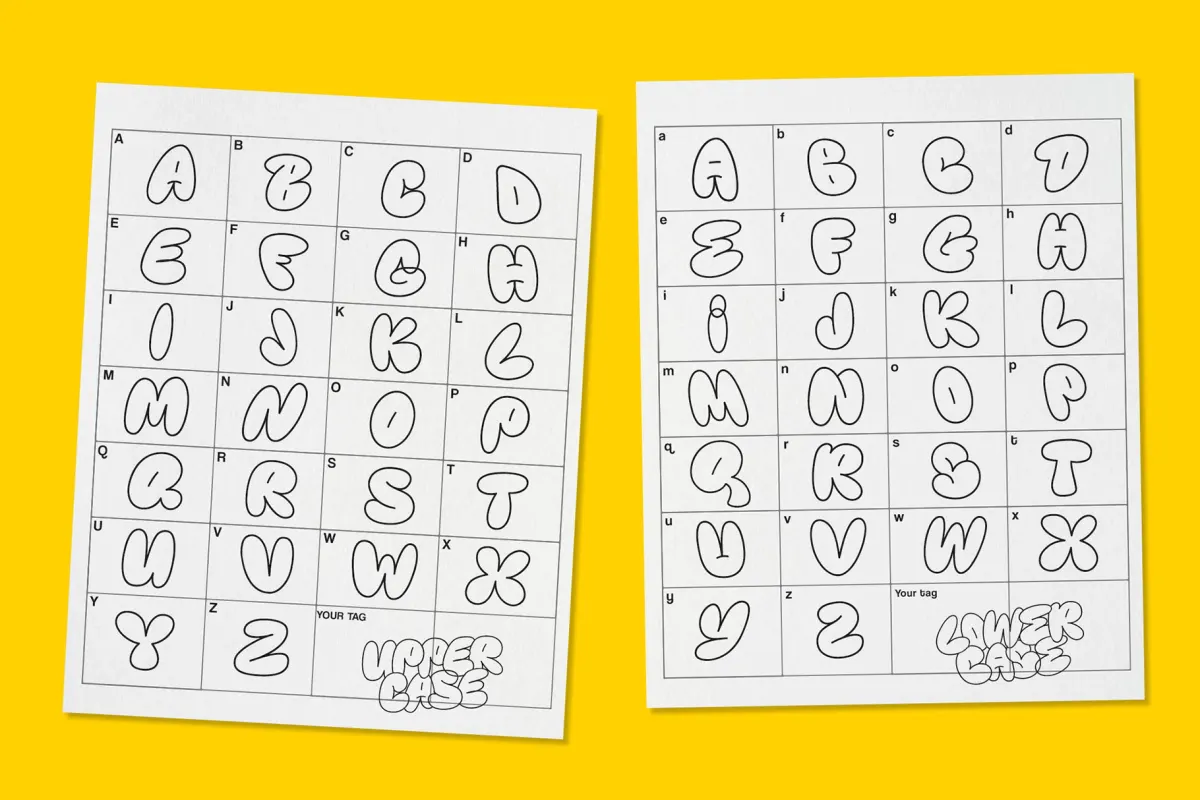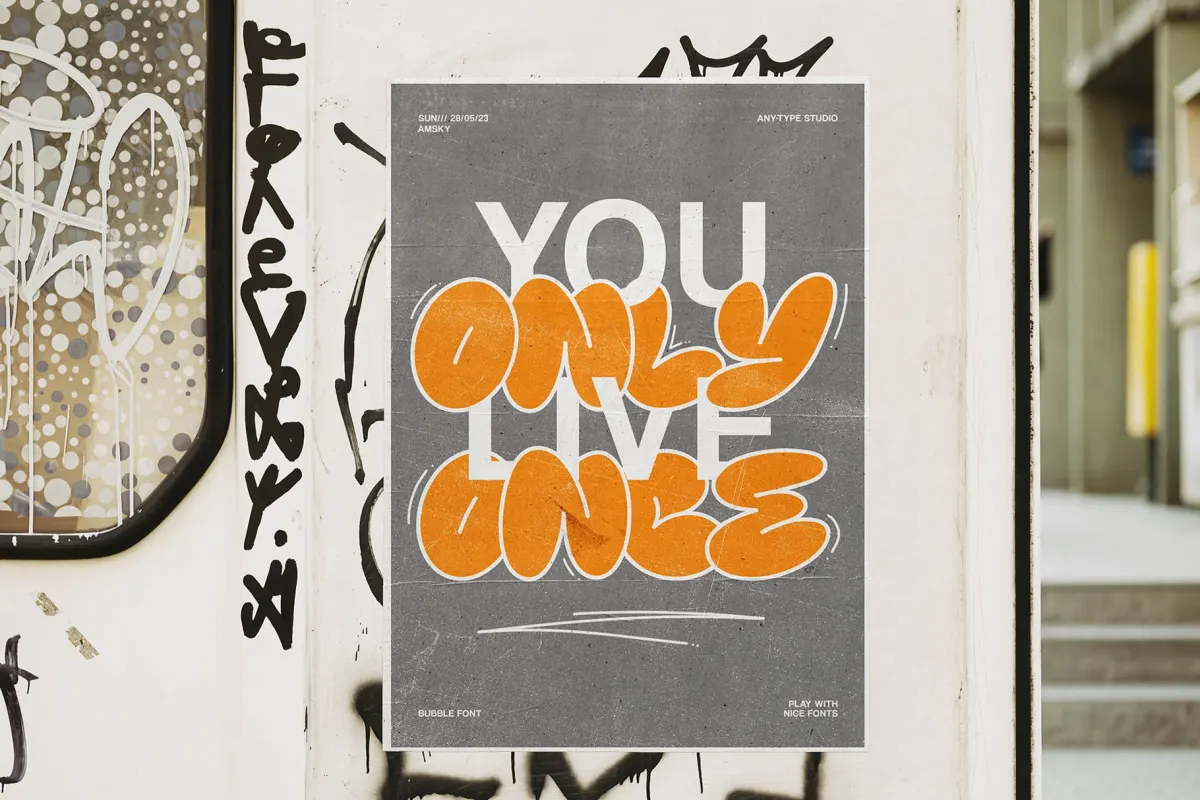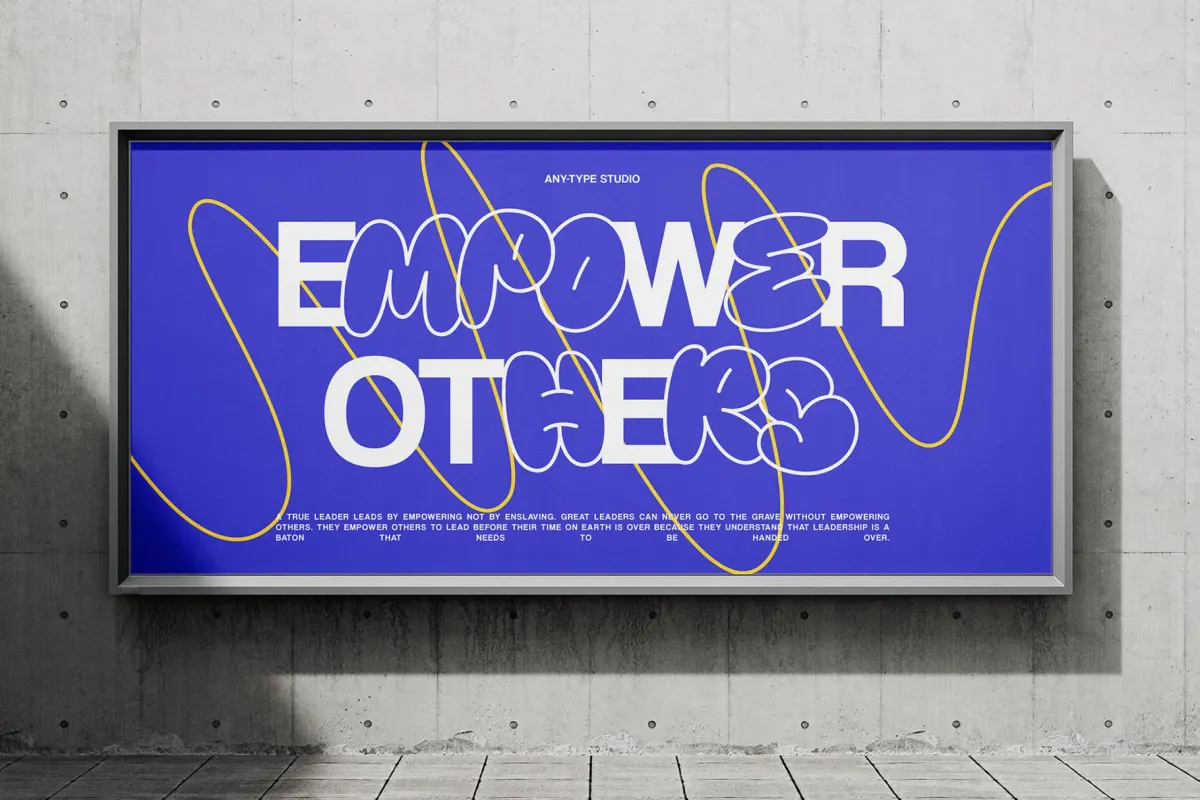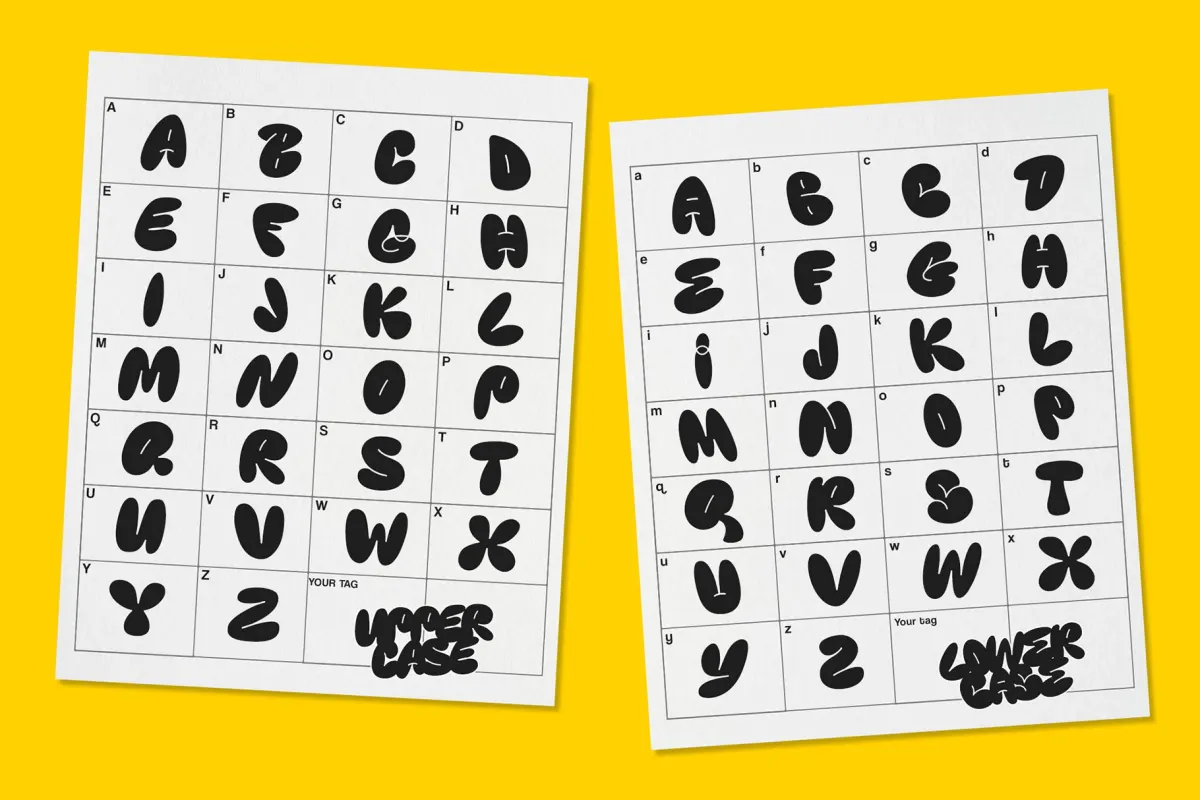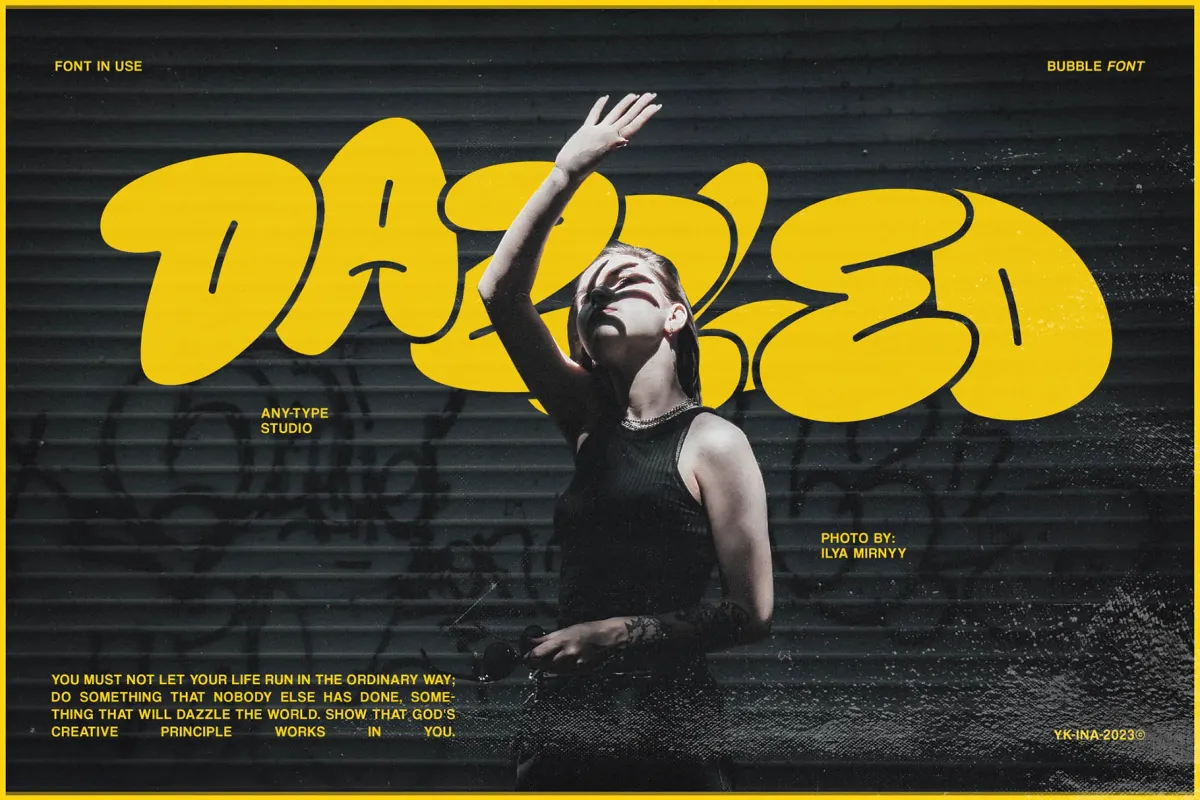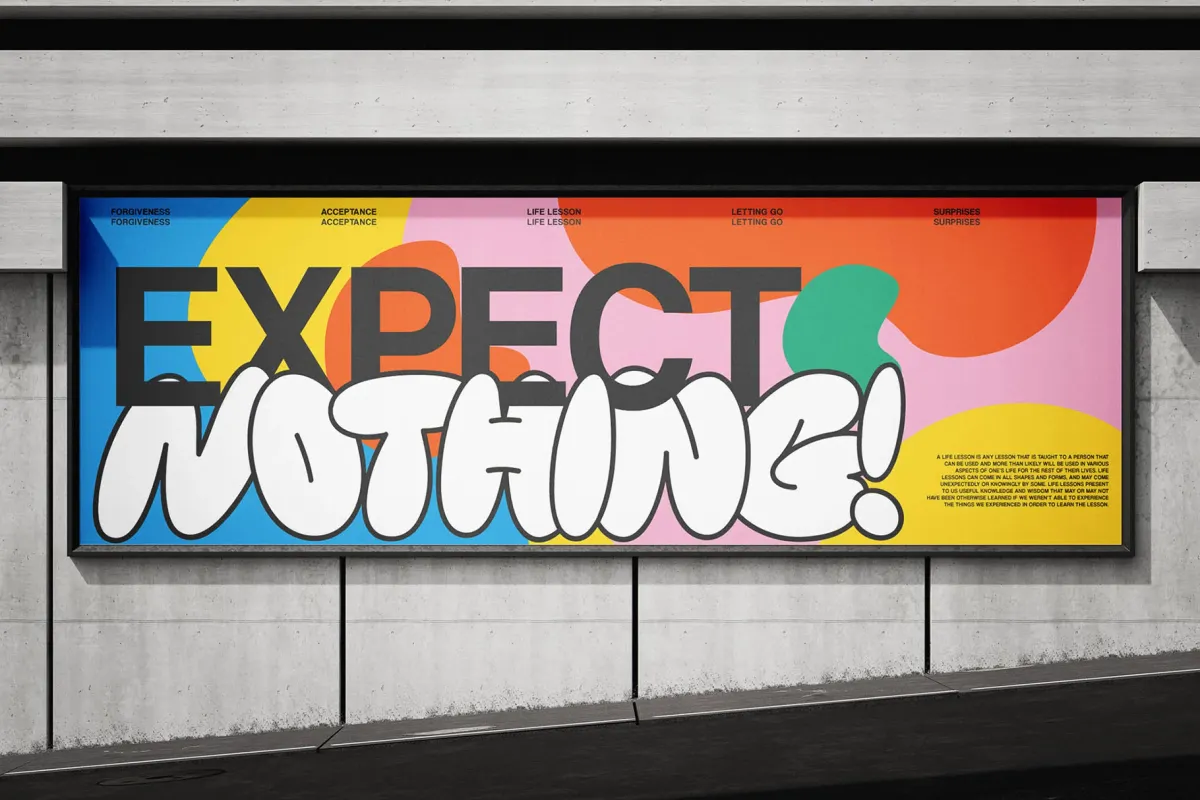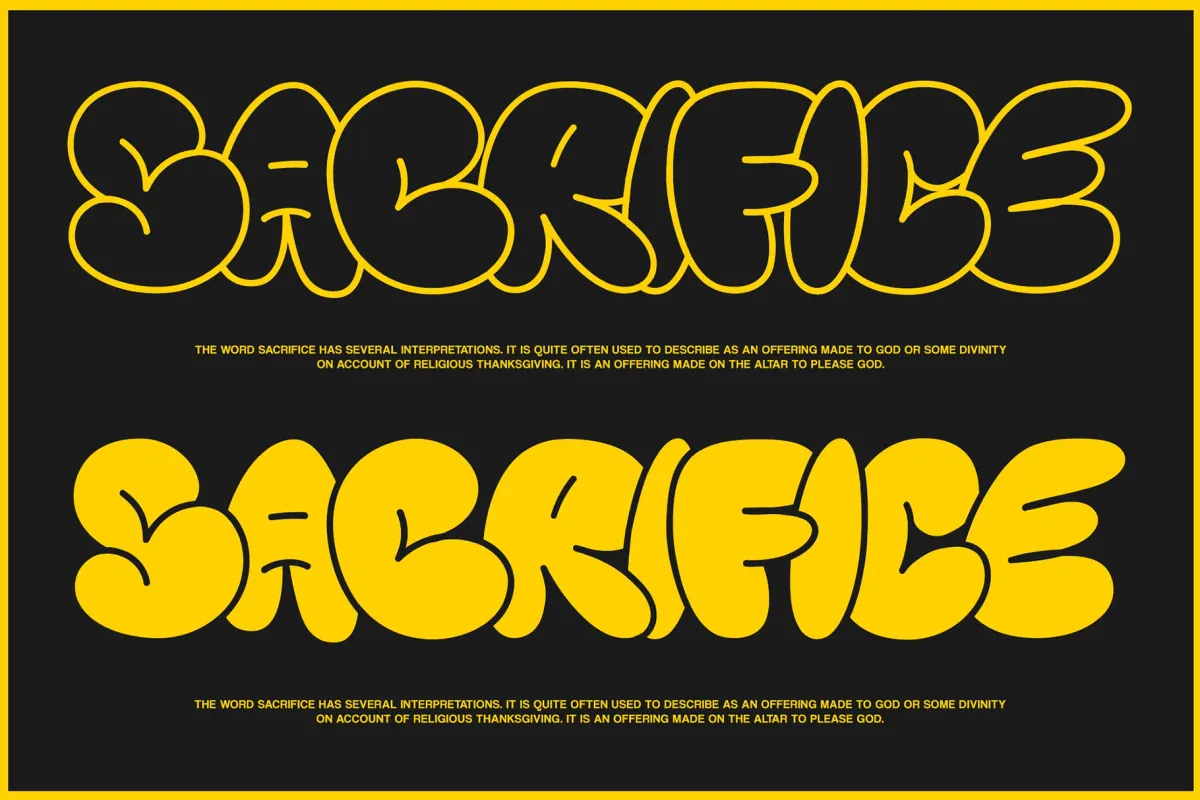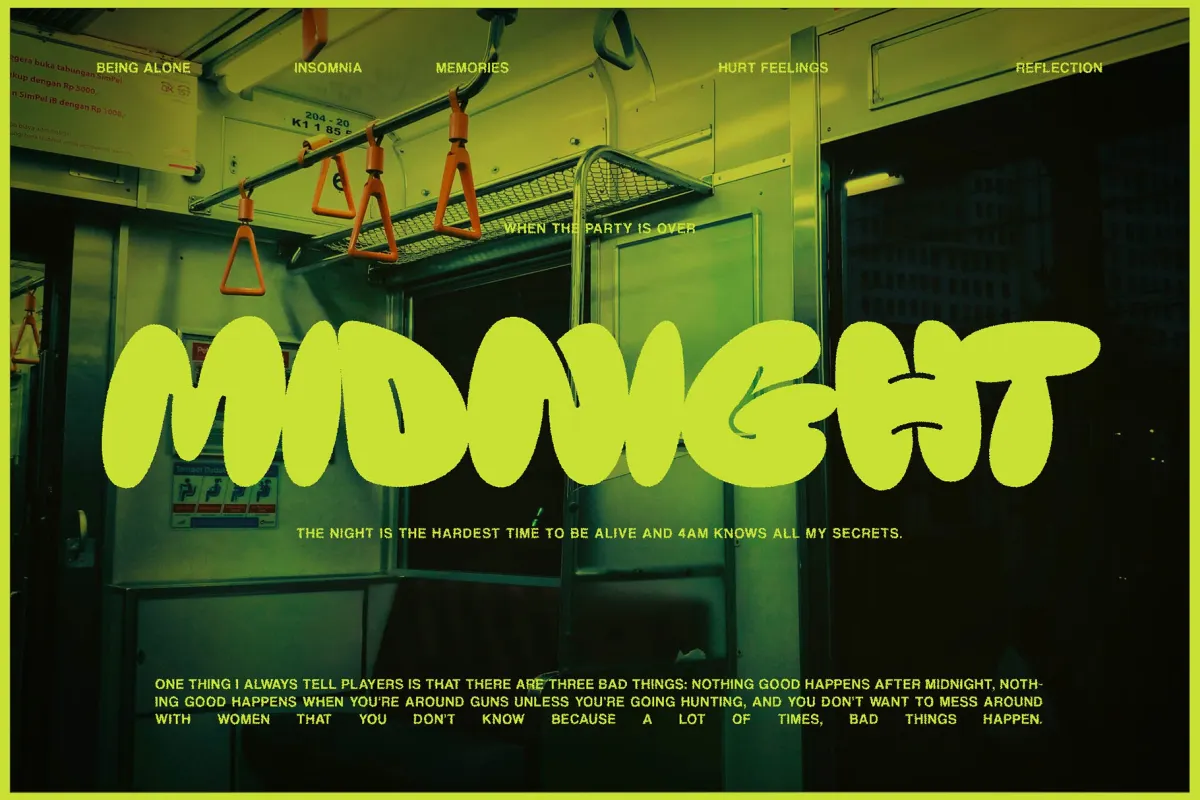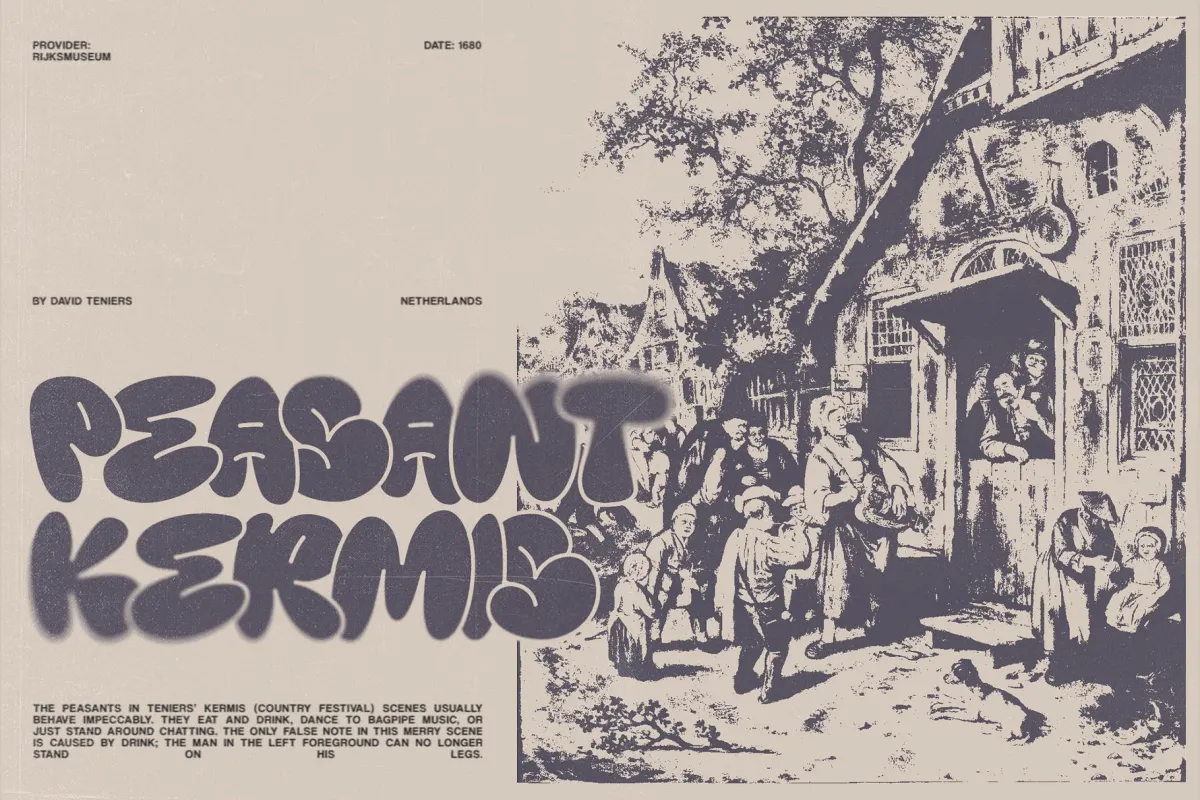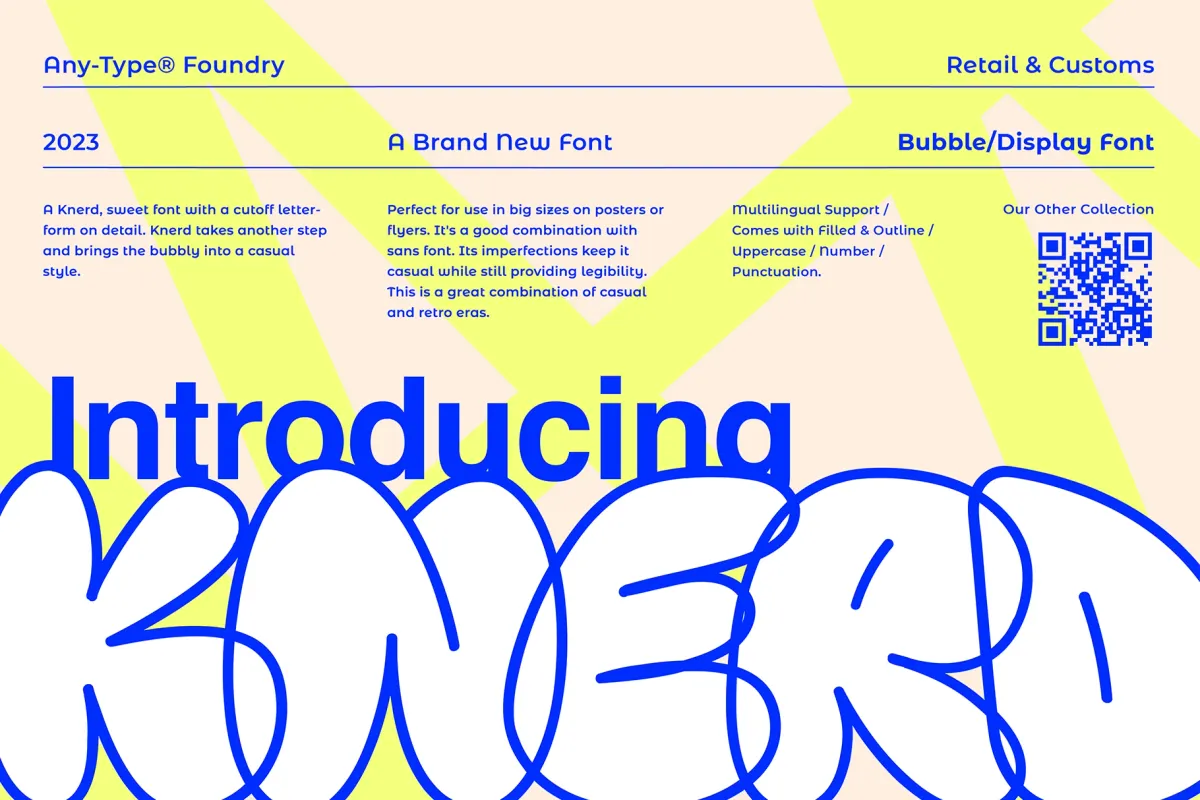
KNERD Bubble Font
This bubbly display font takes its cues from graffiti tags and playground signage: fat strokes, soft corners, and an exaggerated vertical bounce. Each letterform leans into its own volume, giving KNERD a cartoonish look that pops on screen and in print.
KNERD pairs well with structured sans serifs — even in a single word — creating a sharp contrast that feels intentional rather than jarring. This makes the font effective in poster design, streetwear branding, gallery flyers, public murals, headline graphics, youth campaigns, record packaging, and motion design. The outline style adds flexibility for layering, color blocking, or animated fills.